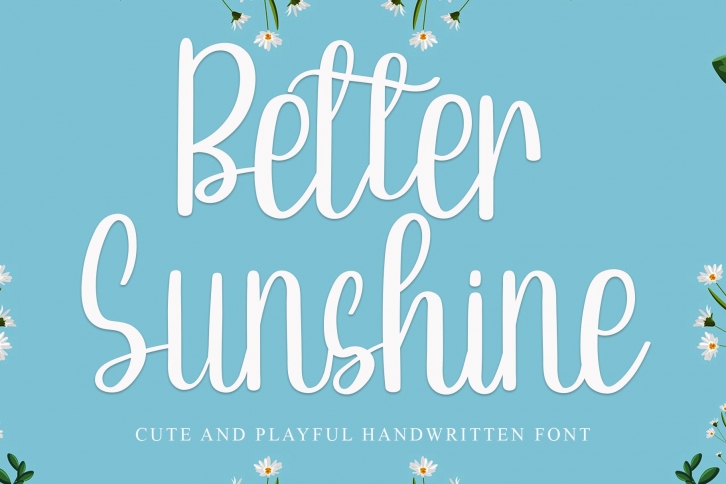
Better Sunshine is an elegant and cheerful handwritten font. It has slim and modern characters that can enhance the look of any creation and make the words stand out from the background!